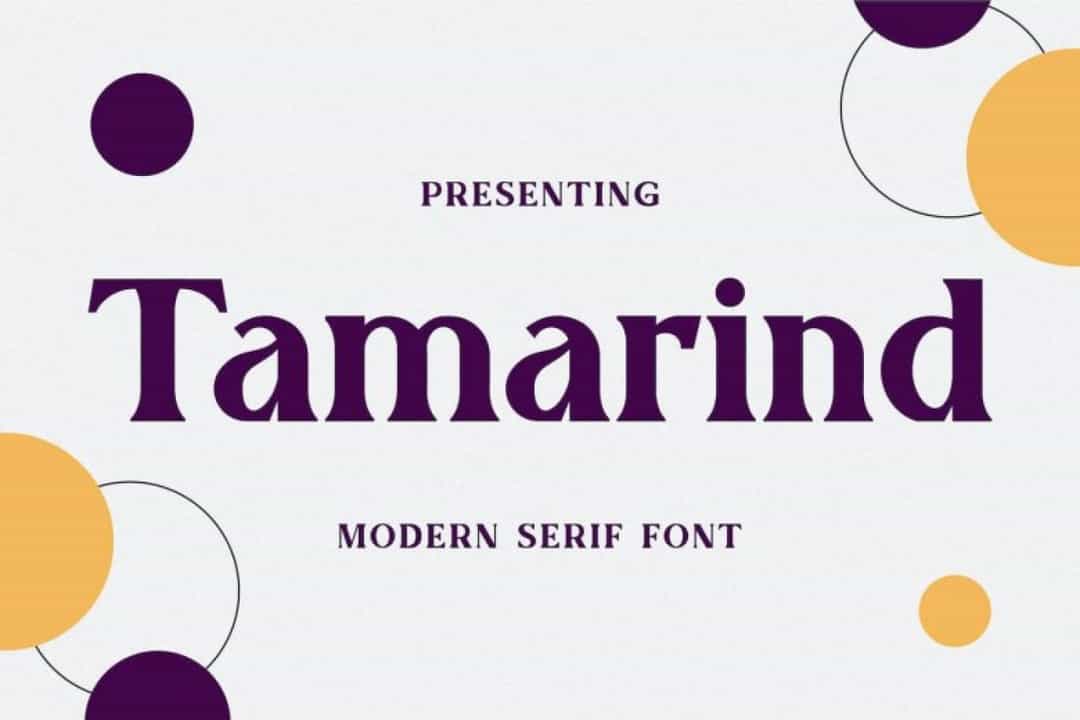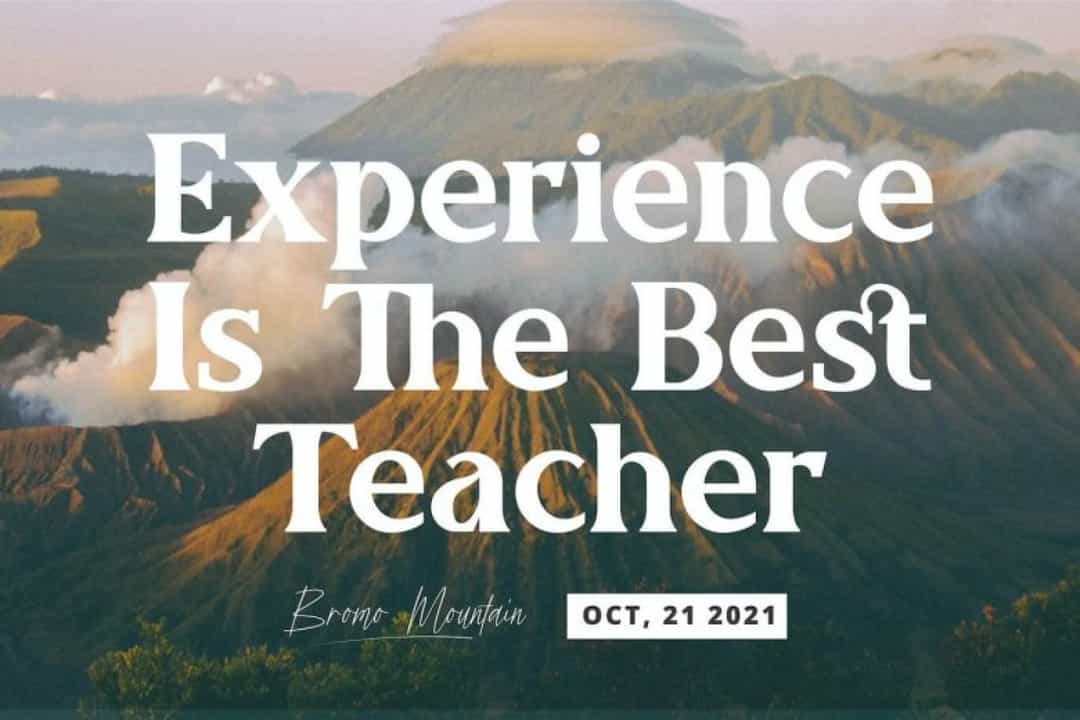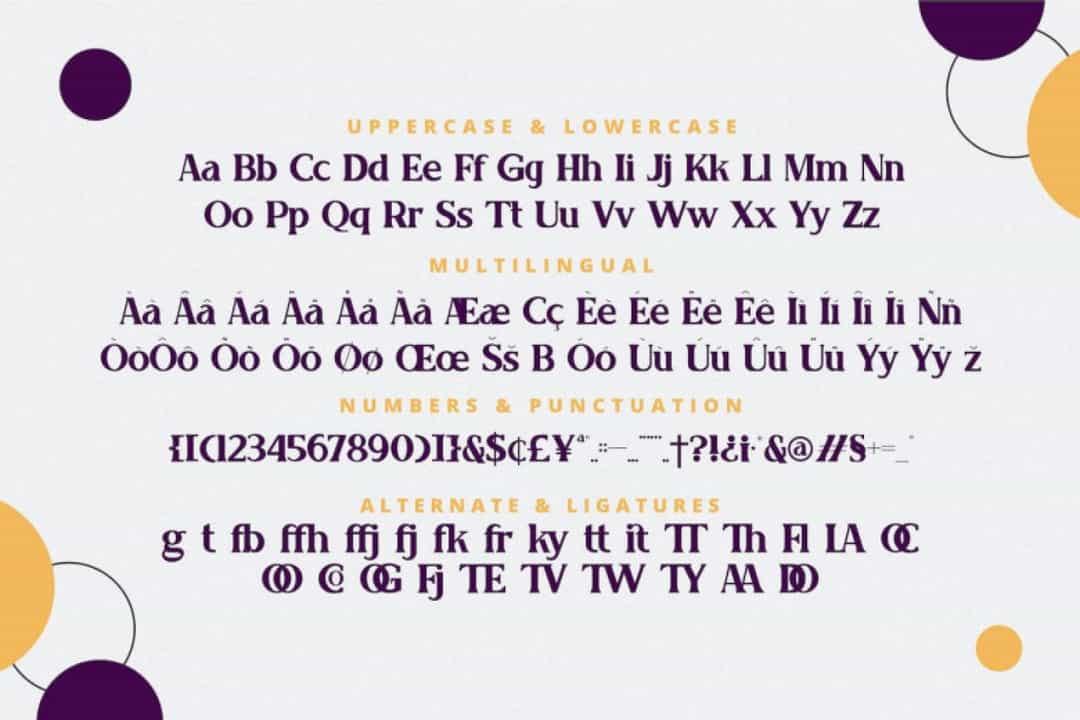
Tamarind Serif Font is ideal for a wide range of designs, such as logos and branding and photography invitations, watermarks advertising product designs stationery wedding designs labels packaging for special events packaging for products for special events and many others.